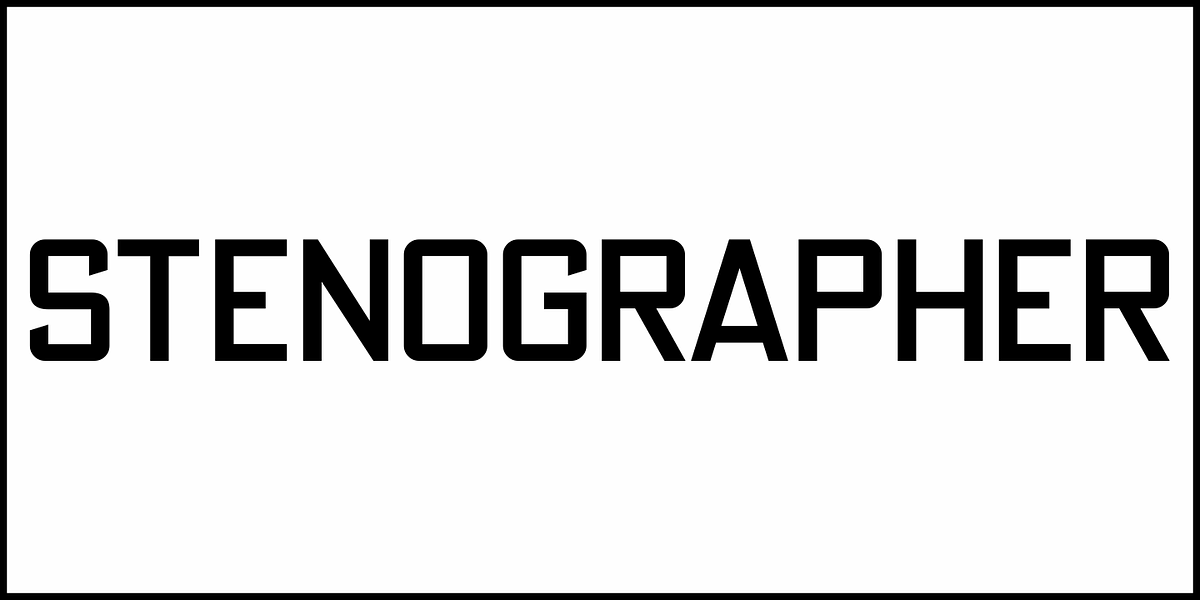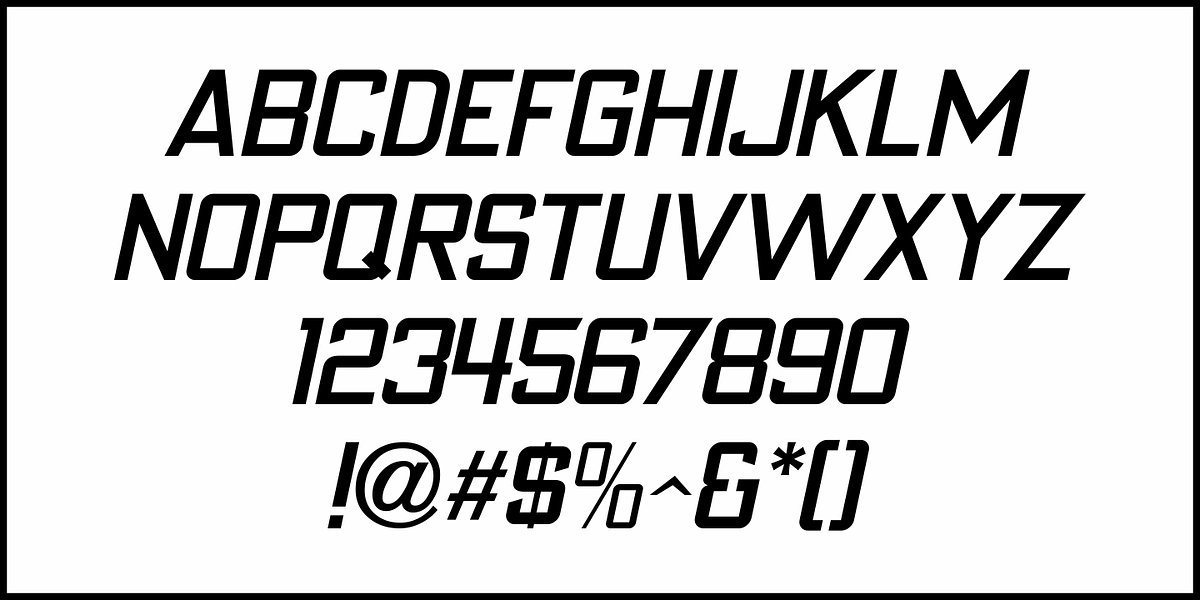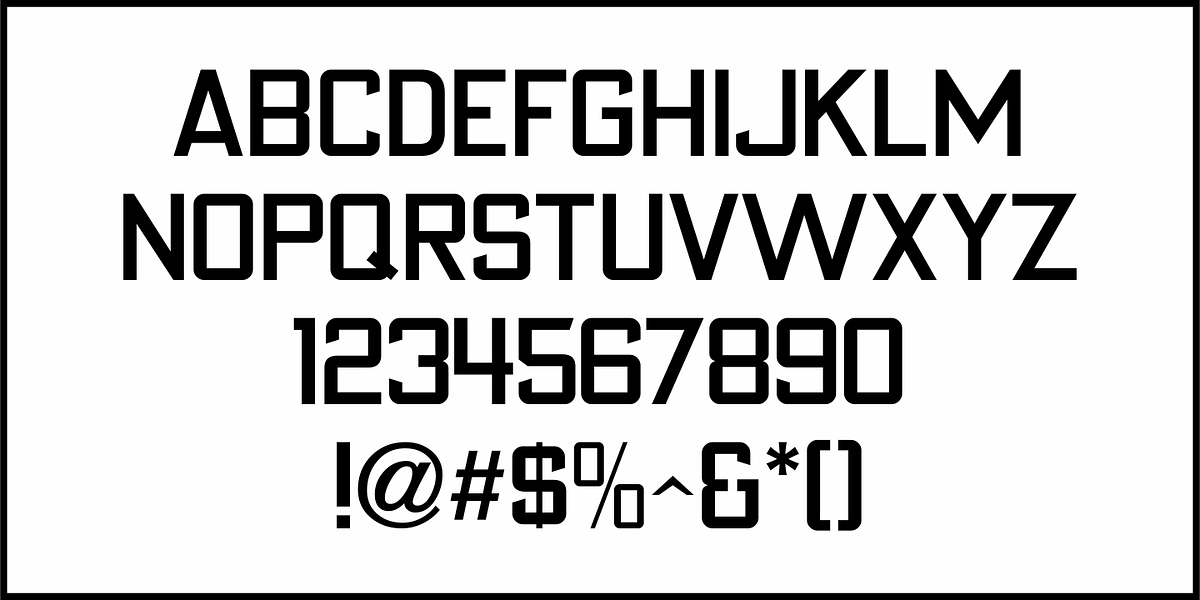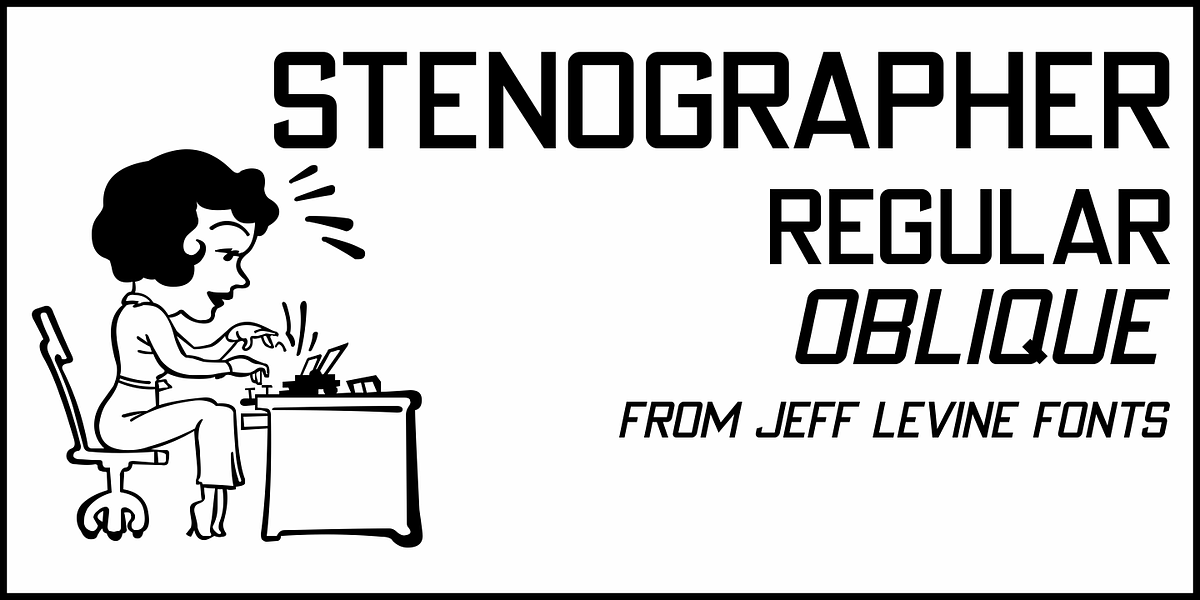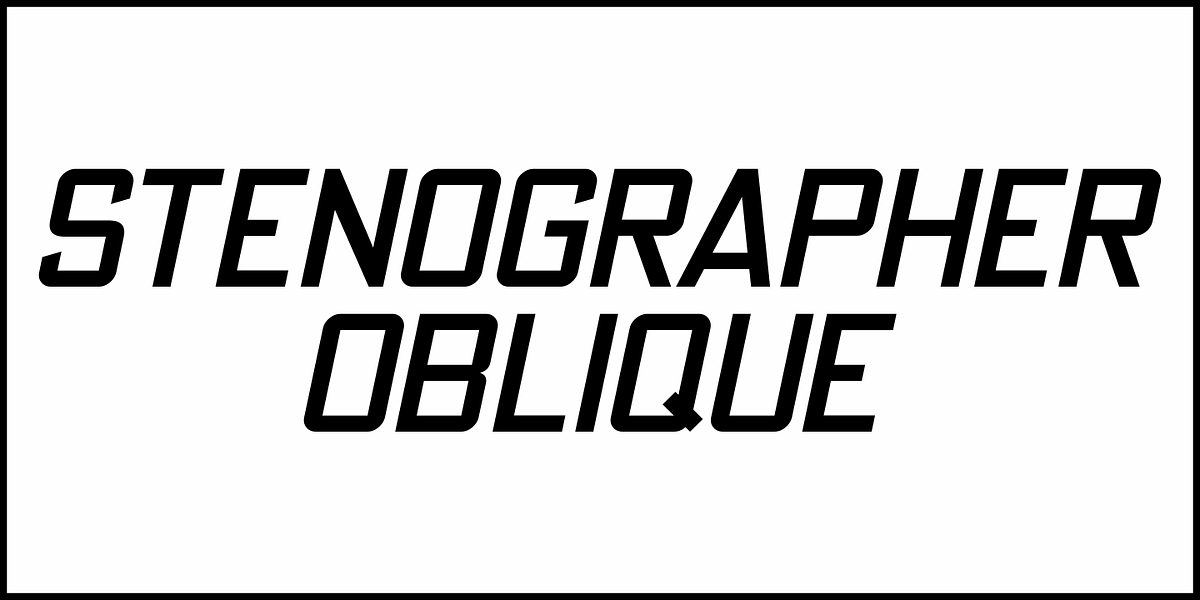
Stenographer JNL
Sheet music for the song “The Little Thing You Used to Do” (from the 1935 motion picture “Go into your Dance” starring Al Jolson and Ruby Keeler) had its title set in what closely resembled Bank Gothic Condensed.
[Bank Gothic was originally designed by Morris Fuller Benton for American Type Founders circa 1930.]
This reinterpreted version is now known as Stenographer JNL, and is available in both regular and oblique versions.